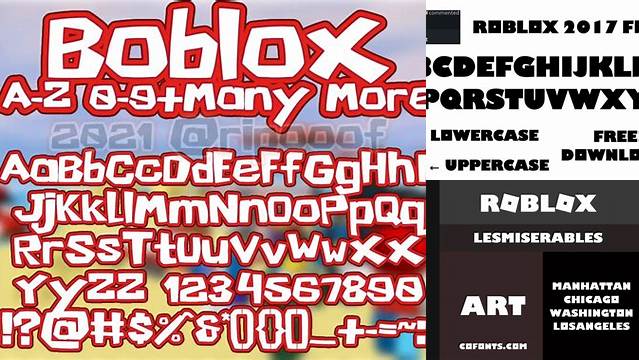
Fonts play a crucial role in the overall aesthetic and user experience of any Roblox game. Choosing the right font can significantly enhance readability, convey the desired mood, and make your game stand out. In this article, we will explore the world of fonts for Roblox, guiding you on how to download, install, and effectively use them to create a visually appealing and engaging gaming experience. Whether you're aiming for a futuristic vibe, a classic look, or something entirely unique, understanding font options is key to achieving your vision. We'll cover everything from where to find free Roblox fonts to how to implement them seamlessly into your game. So, let's dive in and discover how the right typeface can transform your Roblox project!
Why Fonts Matter in Roblox
In the world of Roblox game development, fonts are more than just text; they are a critical element of your game's visual identity. The right font can communicate the theme, mood, and style of your game to players instantly. Imagine a horror game using a playful, cartoonish font – it simply wouldn't create the intended atmosphere. Conversely, a sci-fi game would feel out of place with a handwritten, whimsical font. By carefully selecting fonts that align with your game's genre and narrative, you can enhance the overall player experience and create a more immersive world.
Readability is another crucial factor. If players can't easily read in-game text, they'll likely become frustrated and disengaged. Clear, legible fonts are essential for menus, dialogue, tutorials, and any other text-based elements within your game. You need to consider the size, spacing, and contrast of your fonts to ensure optimal readability across different screen sizes and resolutions. Experiment with different font styles and sizes to find what works best for your game.
Furthermore, fonts can significantly impact the professionalism of your game. Using default or generic fonts can make your game look amateurish, while custom or unique fonts can elevate its visual appeal and make it stand out from the crowd. Investing time in finding or creating the perfect font can pay dividends in terms of player engagement and overall game quality. Think of fonts as a design element just as important as textures, models, and sound effects. They all work together to create a cohesive and compelling gaming experience.
Where to Find Fonts for Roblox
When searching for fonts, consider the genre and theme of your game. For example, a sci-fi game might benefit from futuristic, geometric fonts, while a fantasy game might call for more ornate, calligraphic fonts. Also, think about the readability of the font, especially for in-game text that players will need to read quickly and easily. Don't be afraid to experiment with different fonts until you find the perfect match for your game!
Downloading and Installing Fonts
Once you've found the perfect font for your Roblox game, the next step is to download and install it on your computer. The process is generally straightforward, but here's a step-by-step guide to help you through it:
Fonts are a powerful tool for enhancing the visual appeal and user experience of your Roblox game. By understanding the importance of fonts, knowing where to find them, and learning how to implement them effectively in Roblox Studio, you can create a game that looks professional, engaging, and visually stunning. Remember to consider your game's genre, readability, tone, and mood when choosing fonts, and don't be afraid to experiment and iterate until you find the perfect fit. With the right fonts, you can transform your Roblox game from a simple project into a captivating and immersive experience that players will love.